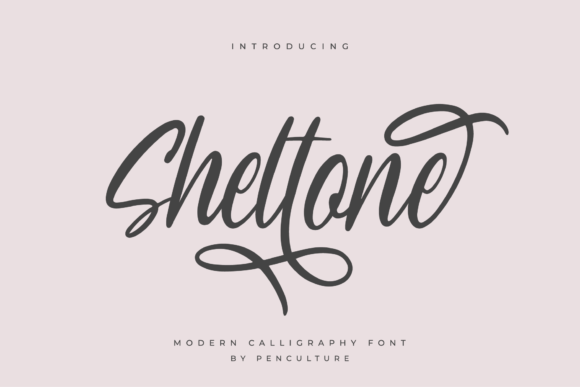
Behold, Sheltone Font, a script font family that exudes both elegance and authenticity. This extraordinary creation from Pen Culture is not just a font; it's an artistic expression that transforms your designs into captivating masterpieces. With Sheltone, you can unlock a world of visual allure and make your creative visions shine.
Sheltone's enchanting curves and delicate lines dance across the page, evoking a sense of timeless beauty. Its refined strokes lend an air of sophistication to your designs, whether it's a wedding invitation, a brand logo, or a social media post. This font effortlessly adds a touch of class and elegance to any project, leaving a lasting impression on your audience.
Beyond its visual appeal, Sheltone is a versatile font that adapts effortlessly to various design styles. Its organic flow lends itself perfectly to whimsical and romantic themes, bringing a touch of playfulness to your creations. However, Sheltone's versatility extends far beyond the realm of whimsy; it also excels in formal and modern settings. Its ability to blend seamlessly with different design aesthetics makes it a true asset for any creative arsenal.
With Sheltone, you'll find endless opportunities to express yourself creatively. Create stunning logos that exude professionalism and leave a lasting impression on your clients. Design captivating social media posts that grab attention and engage your audience. Craft beautiful invitations that set the tone for a special occasion. And let your imagination run wild as you explore the limitless possibilities that Sheltone has to offer.
Don't settle for ordinary fonts that blend into the background. Embrace the power of Sheltone and elevate your designs to new heights. Let your creativity soar as you witness the transformative effect of this extraordinary script font. Experience the joy of creating designs that captivate, inspire, and leave an unforgettable mark on the world.
Sheltone Font: Where elegance and authenticity unite to create a typographic masterpiece. Unleash your creativity and make your designs shine with this exceptional font family. Embrace the beauty of Sheltone and embark on a journey of visual enchantment.